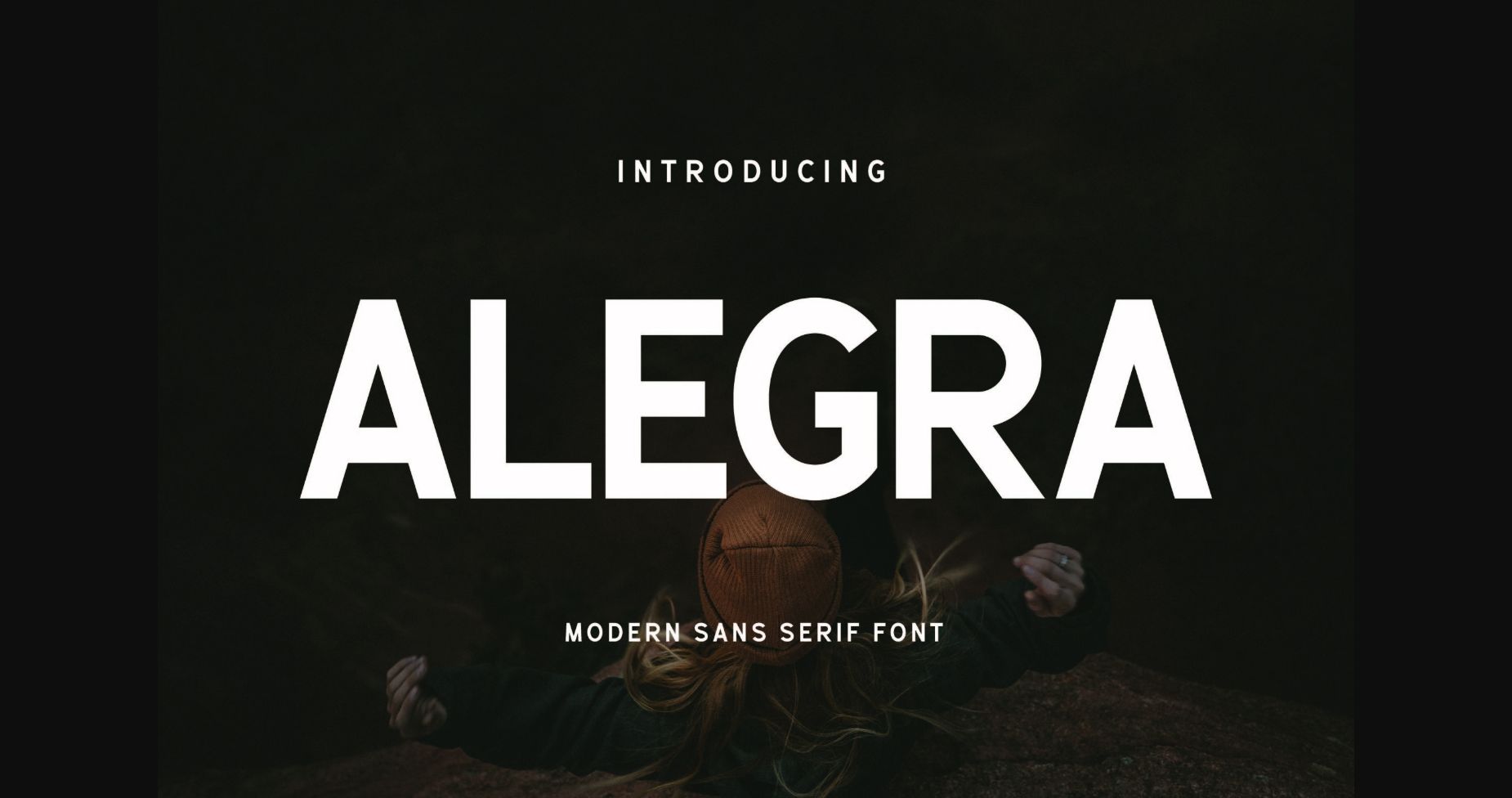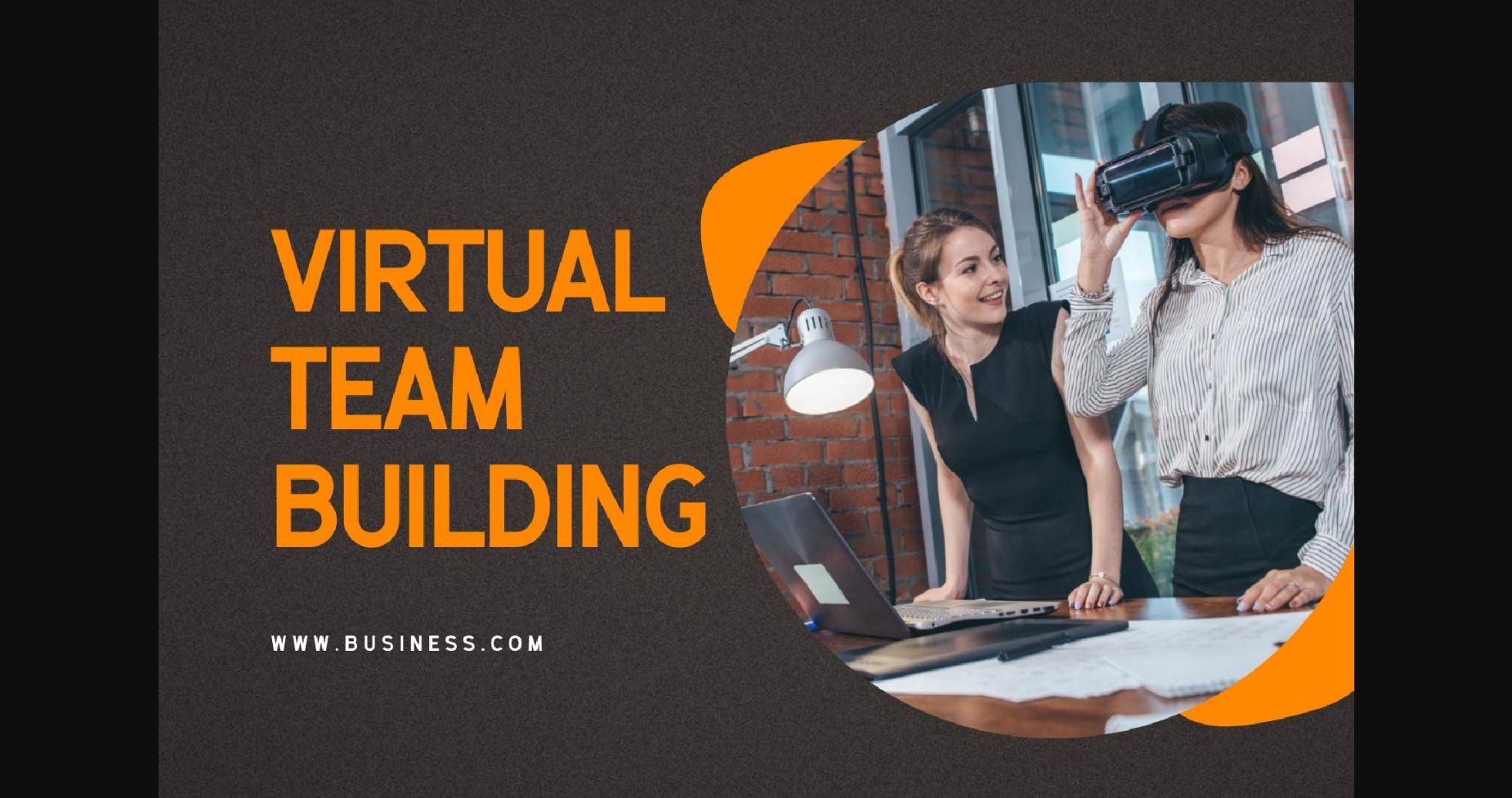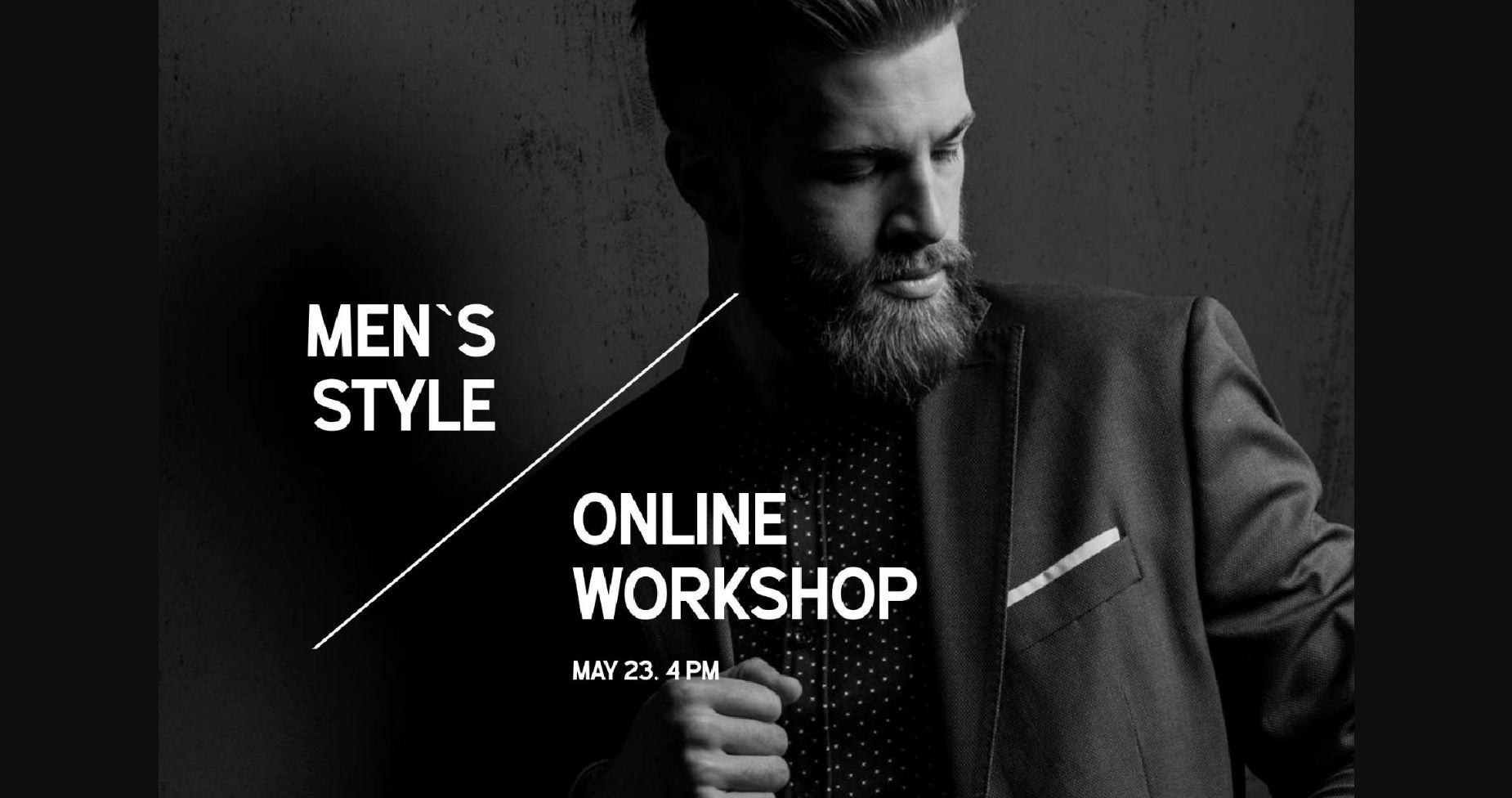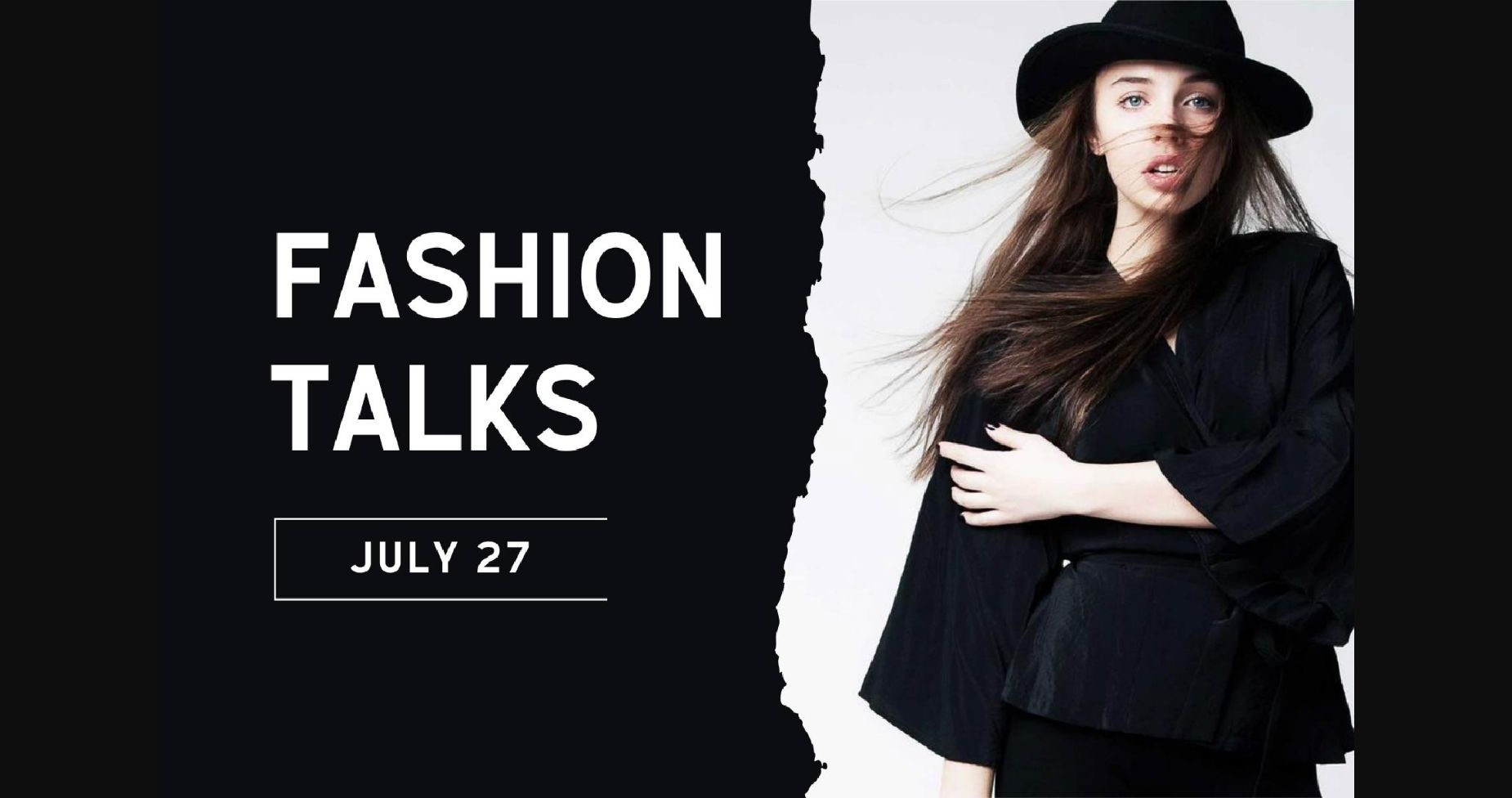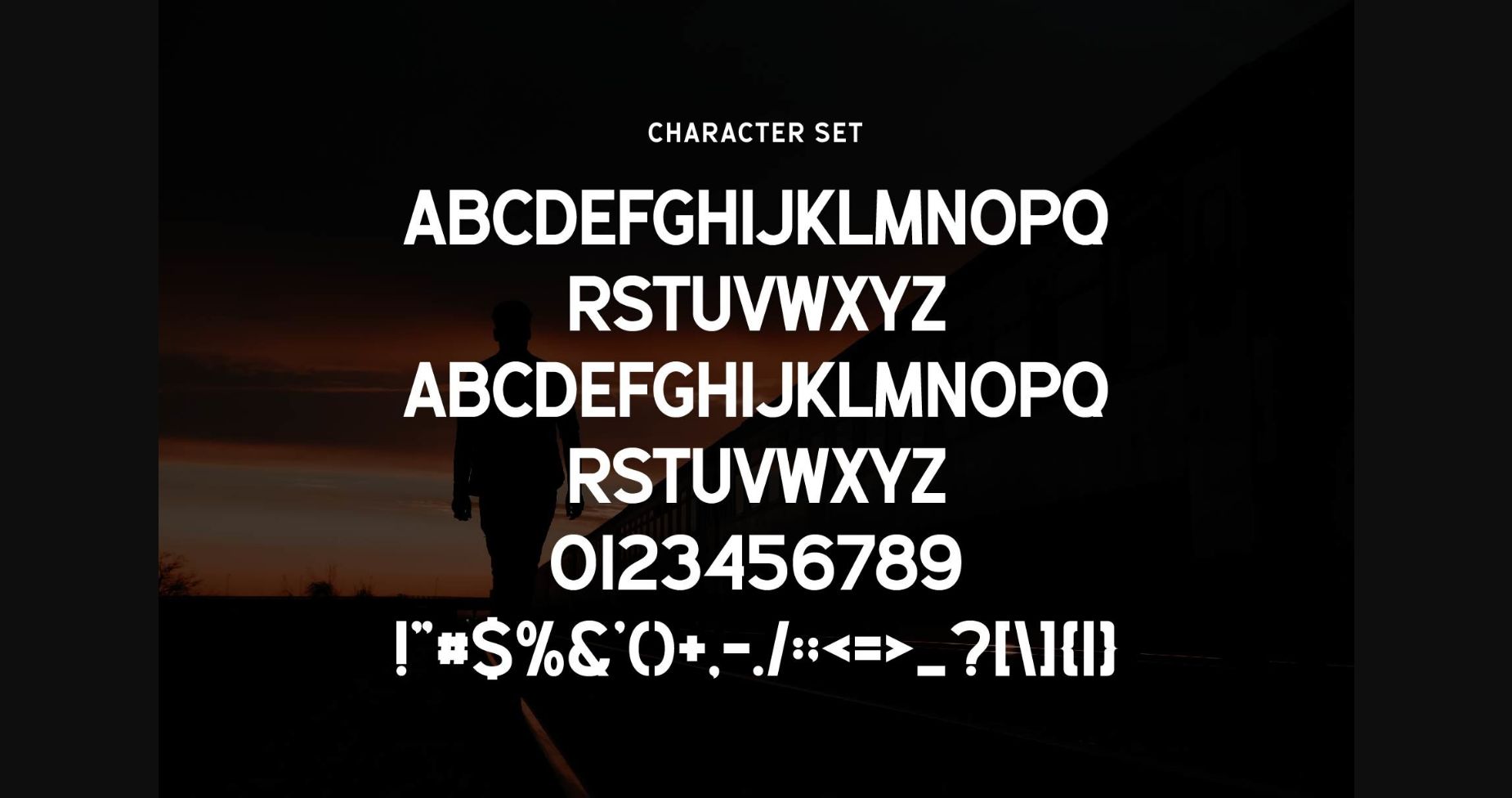
Alegra Font
About Alegra Font
Alegra is a modern sans serif font inspired by the famous minimalist logo, perfect for the purposes of designing templates, brochures, videos, advertising branding, logos, invitation, layout design, elegant crafting, beauty design and much more.